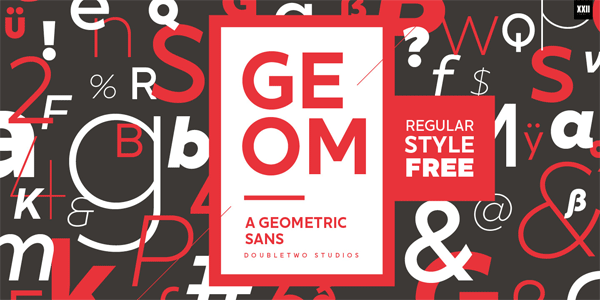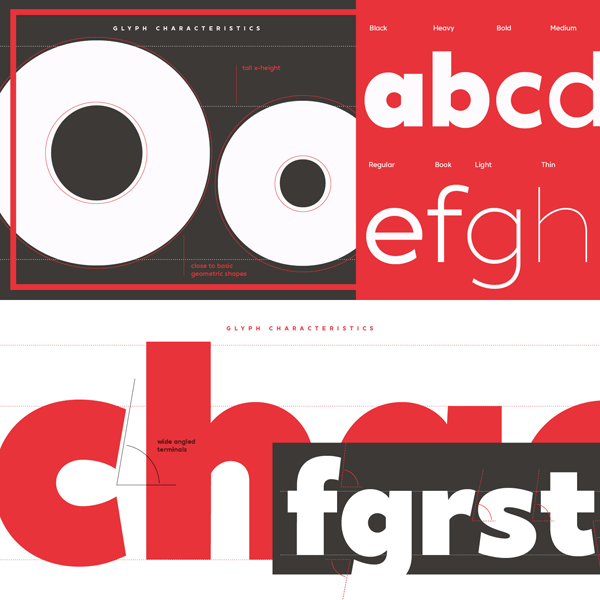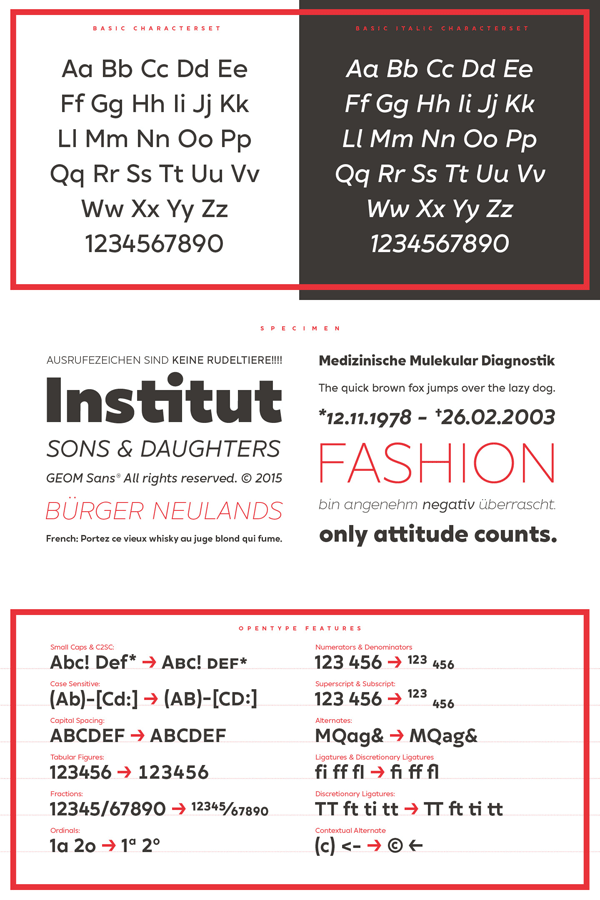
The new XXII Geom typeface, a geometric sans serif font family from Doubletwo Studios.
Lecter Johnson, a German type designer and founder of Doubletwo Studios has created the XXII Geom font family in 2015. XXII Geom is a geometric sans serif font family that comes in 8 weights plus matching italic versions. The typeface is characterized by a modern geometric design with a clear focus on functionality and legibility. Lecter Johnson’s aim was to develop a well balanced low contrast typeface with a tall x-height to ensure a modern look and feel. The italics provide a little more curvy approach, which complement perfectly with the straight shapes of the upright characters.
The XXII Geom font family is equipped with multi language support and plenty of typographic features such as Small Caps, Case Sensitives, Ligatures, Stylistic Alternates, etc. The modern geometric look of the XXII Geom typeface fits perfectly for mobile applications, web design, signage, brand identities, and many more. The whole family is available as both webfont and desktop font. Just follow the link below to get further information on this beautiful sans serif typeface.